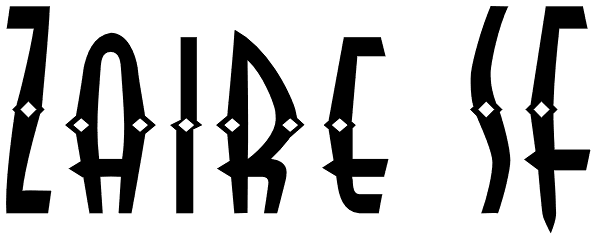
Zaire SF
Zaire SF is a distinctive, elegant, ethnic style font, inspired by the ancient masking traditions of the tribes indigenous to Zaire in Central Africa. The font captures the magic of the mask, representing the dance, the ceremony, the secret society...